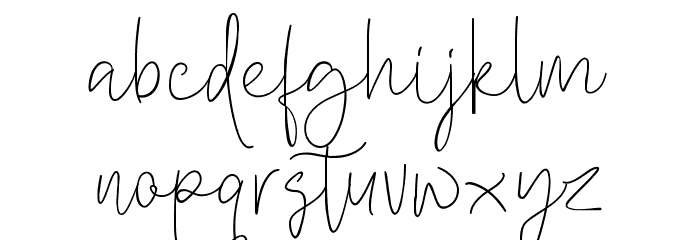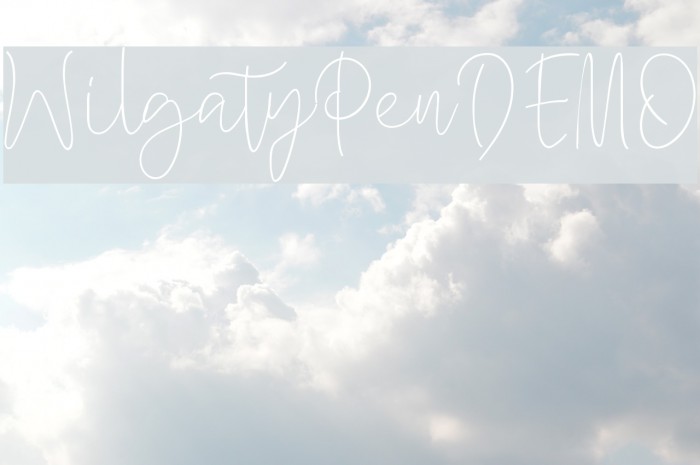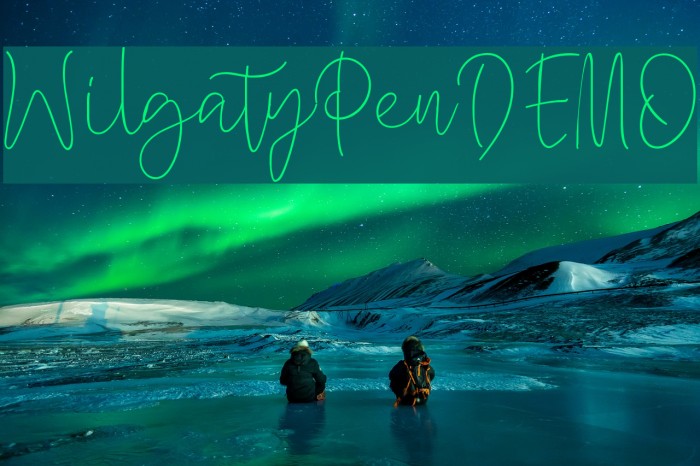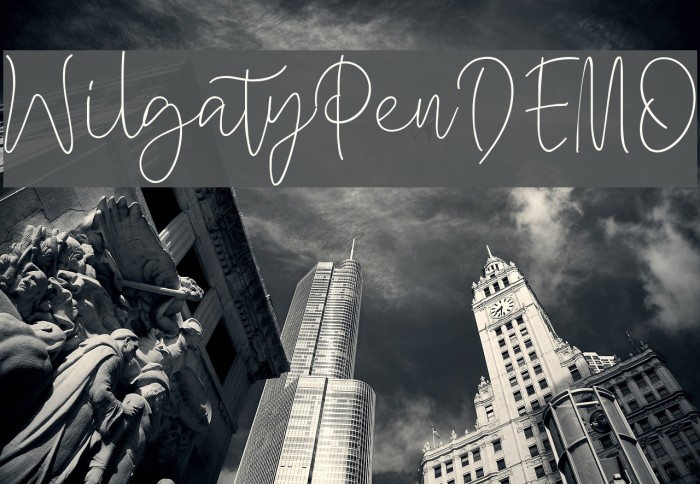
WilgatyPenDEMO Font
This font features a lively and expressive handwritten style, characterized by its fluid and dynamic strokes. The uppercase letters exhibit a playful yet elegant form, with varying line thickness that adds a sense of movement and personality. The lowercase letters maintain a consistent flow, complementing the uppercase with their slightly cursive nature. This font's overall appearance is both casual and sophisticated, making it versatile for various design applications. The special characters are seamlessly integrated, maintaining the font's cohesive style.
A lively and expressive handwritten font with fluid strokes and dynamic movement.
- Proposed Projects: Ideal for personal branding, invitations, greeting cards, and creative projects that require a personal touch.
- Category: Handwritten
- Use Case: Logos, Invitations, Personal Branding